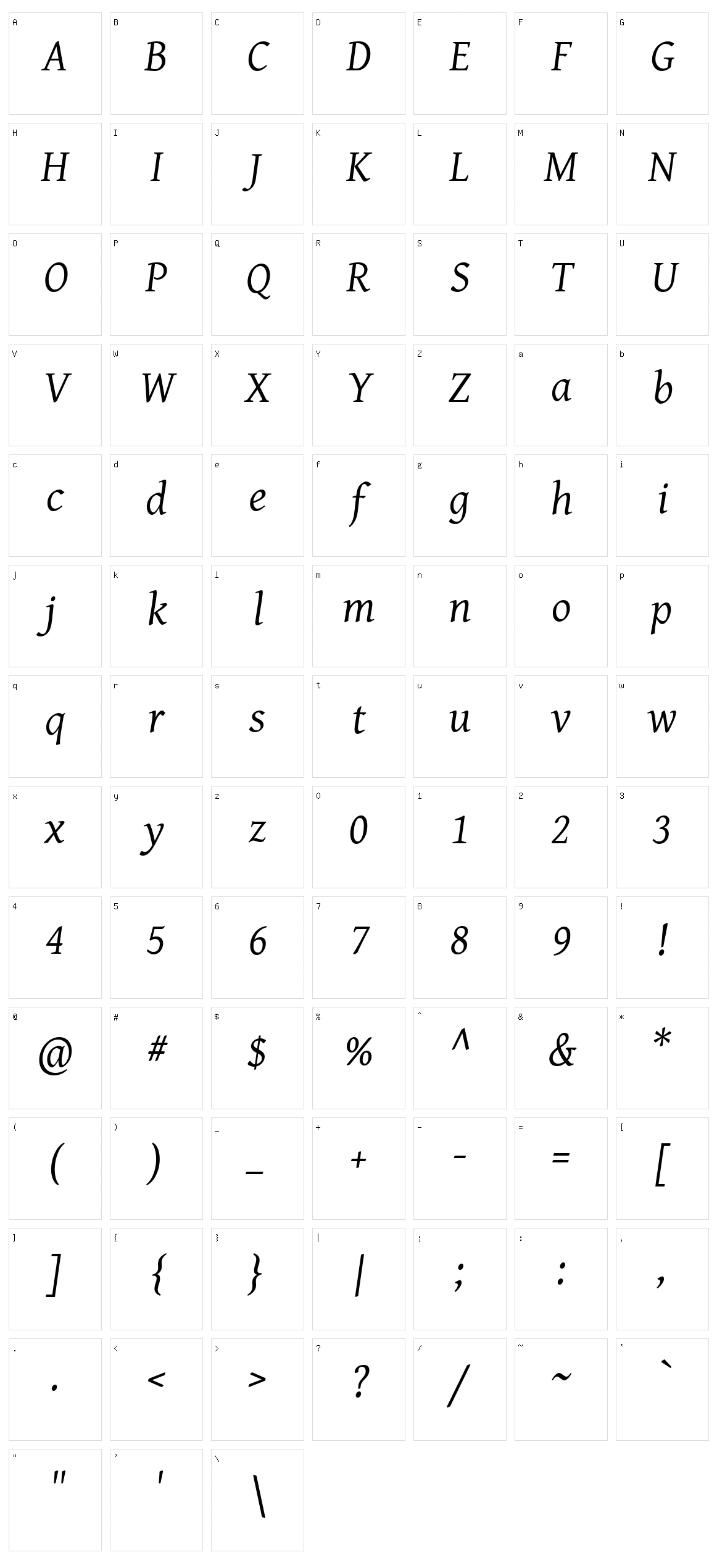
Here are some answers to frequently asked questions about the Gentium fonts:
How do you pronounce Gentium?
The preferred pronunciation is with a soft G as in 'general', not a
hard one as in 'gold': JEN-tee-oom.
What is GentiumAlt?
It is a version of the font with redesigned diacritics (flatter
ones) to make it more suitable for use with stacking diacritics, and
for languages such as Vietnamese. The Greek glyphs also use the
Porsonic (single-curve) design for the circumflex. Since Gentium
does not currently include any 'smart' rendering routines, there is
no easy way to access these alternate diacritic shapes from within
the regular Gentium font. The encoding of the fonts are the same, so
the same text can be viewed with either one. There is also no
problem with having both font families installed at the same time.
I can't find all the extended Latin letters in the font. How do I type them?
Gentium is Unicode-encoded, which means that the computer stores a
special, unique code for each letter in your document. Since most
keyboards do not have hundreds of keys, special software is needed
in order to type the hundreds of special characters supported by the
font.
I can't find the 'o with right hook' in the font. Where is it?
Combinations of base letters with diacritics are often called
composite, or pre-composed glyphs. Gentium has hundreds of these
(the ones that are included in Unicode). There are, however, many
common combinations that are not represented by a single composite.
It is possible to enter these into a document, but only as
individual components. So 'o with right hook' would be entered as
'o', then 'right hook'. Although this may not look very good in some
cases, we're not able to anticipate every possible combination.
Future versions of Gentium will include 'smart font' support for
technologies such as OpenType and SIL's Graphite. This will make
diacritic positioning much better.
Some diacritics are not aligning well with base glyphs, and if I type more
those be ready?
These have already been designed and will be in the next release
(mid-2006).